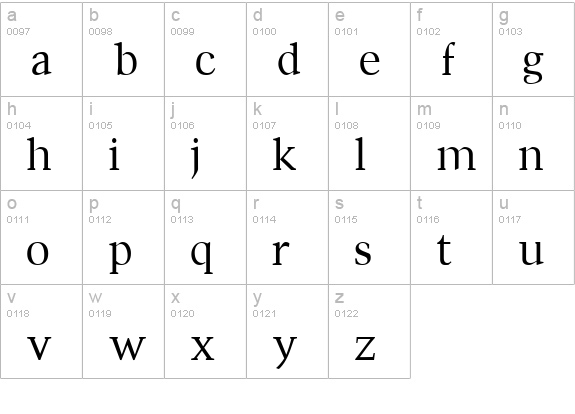
Divona Font Details
Introducing Divona font, a sleek and modern typeface that exudes elegance and sophistication. With its clean lines and stylish design, Divona is perfect for a wide range of projects, from branding to editorial design. This versatile font features a unique blend of classic and contemporary elements, making it suitable for both print and digital applications. What sets Divona font apart is not only its stunning aesthetics but also its accessibility. This exquisite typeface is available for free download at FontsMarket.com, allowing designers and creatives to access this premium font without any cost. Whether you're working on a logo, website, or any other design project, Divona font is sure to elevate your work and leave a lasting impression. Don't miss out on the opportunity to enhance your designs with Divona font. Download it for free today and unleash your creativity with this exceptional typeface.